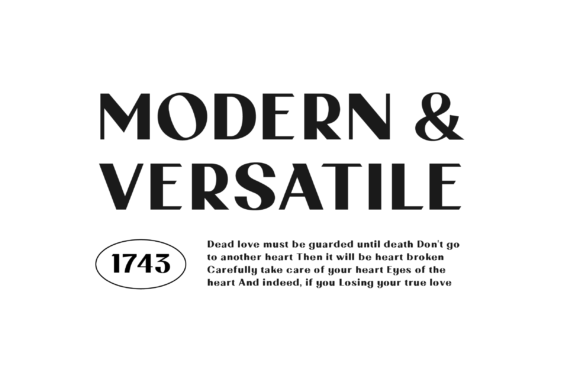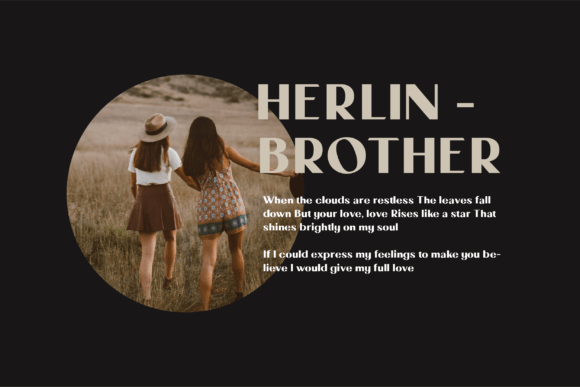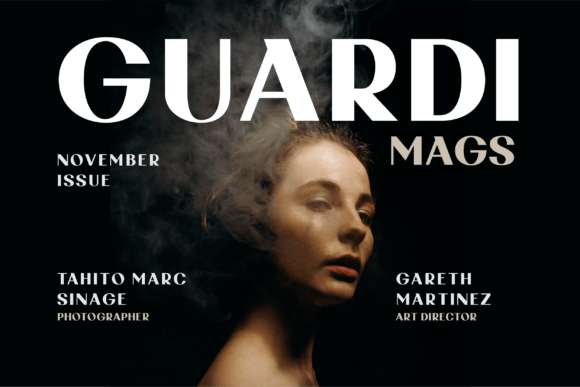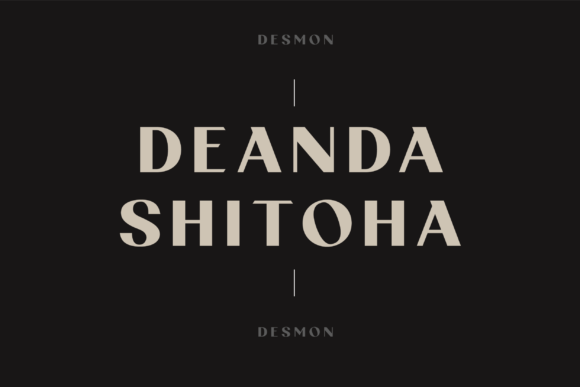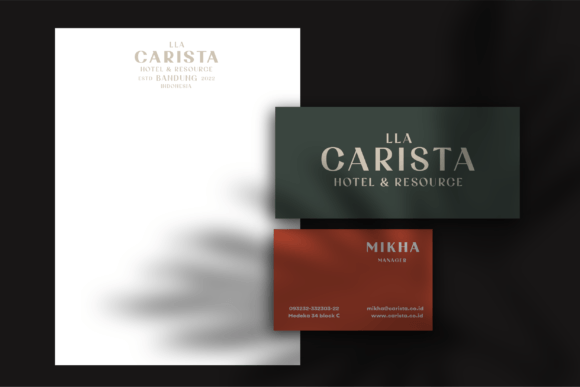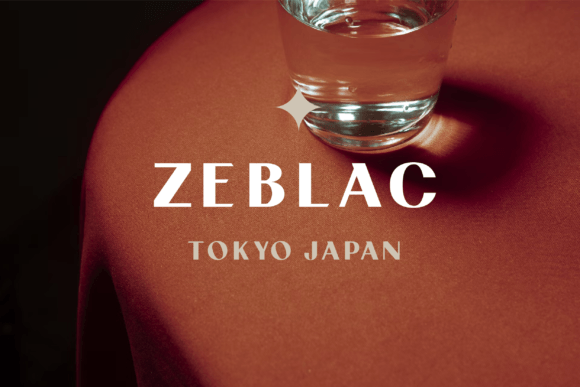
Introducing Desmon Font: The Modern Sans Serif for Creative Minds
In the world of typography, a font can make or break a design. It’s the foundation upon which a visual masterpiece is built. For designers, crafters, and creatives, finding the perfect font can be a daunting task. That’s where Desmon Font comes in – a modern and versatile sans serif font that’s poised to elevate your designs to new heights.
The Versatility of Desmon Font
Desmon is more than just a font; it’s a tool that can adapt to any design style or theme. Whether you’re working on a sleek corporate project, a playful brand identity, or a creative craft, Desmon’s clean lines and modern aesthetic make it an incredible asset to your font library. Its versatility lies in its simplicity, allowing it to seamlessly integrate into various contexts without overpowering the content.
Key Features of Desmon Font
- Modern Aesthetic: Desmon boasts a contemporary look that’s perfect for projects that demand a fresh and current feel.
- Versatile: From digital platforms to print materials, Desmon’s adaptability knows no bounds.
- Clean Lines: The font’s clear and uncluttered design ensures excellent readability across different mediums.
- Wide Range of Applications: Desmon is suitable for headings, body text, and everything in between, making it a go-to font for comprehensive design projects.
Why Choose Desmon Font?
Choosing a font for your project is a critical decision that can significantly impact the final outcome. Here are a few reasons why Desmon stands out:
- Enhances Readability: Desmon’s design prioritizes readability, ensuring that your message is conveyed clearly and effectively.
- Elevates Design: With Desmon, you can add a touch of modern sophistication to your projects, setting them apart from the rest.
- Time-Saving: Given its versatility, Desmon can be used across multiple projects, saving you time and effort in searching for different fonts.
- Easy to Pair: Desmon’s neutral background makes it easy to pair with other fonts, offering endless possibilities for creative combinations.
Using Desmon Font in Your Projects
Incorporating Desmon into your workflow is straightforward. Here are some tips on how to make the most of this versatile font:
- Experiment with Sizes: Desmon’s clear design ensures it looks great in various sizes, from large headings to smaller body text.
- Play with Colors: While Desmon works well in black and white, experimenting with colors can add a unique touch to your designs.
- Mix and Match: Don’t be afraid to combine Desmon with other fonts to create a unique visual hierarchy.
Desmon Font is a game-changer for designers and crafters looking for a modern, versatile, and reliable sans serif font. Its adaptability, readability, and contemporary aesthetic make it an excellent addition to any font library. Whether you’re working on a digital project, a print material, or anything in between, Desmon is poised to elevate your creations and streamline your design process. With Desmon, you can ensure that your designs are not only visually appealing but also effectively communicate your message.